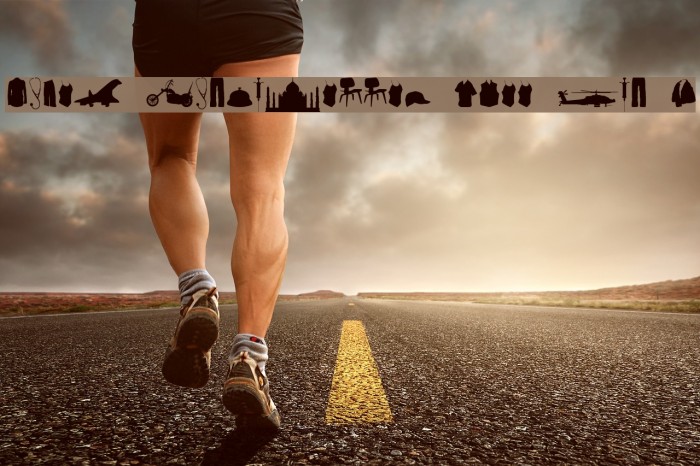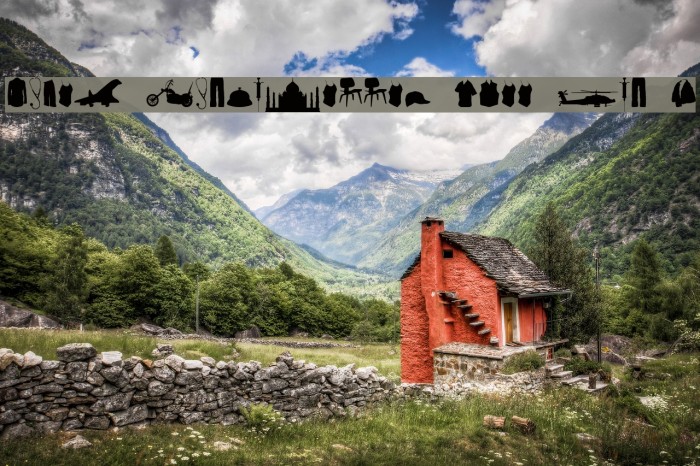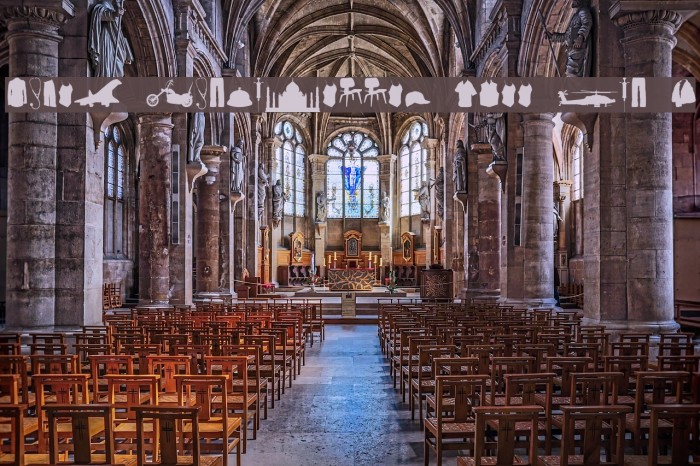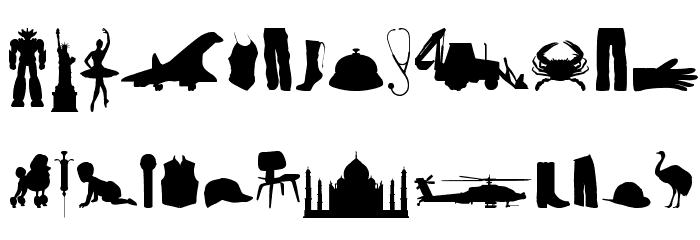
Mixed Silhouettes Free vol 3 Font
Mixed Silhouettes Free vol 3 Description
A decorative display font made up entirely of various mixed silhouettes, including people, vehicles, animals, clothing, and objects, with each character represented by a unique black silhouette rather than traditional letterforms.
A silhouette-based decorative display font using assorted object and figure shapes from Uncategorized fonts.
- Proposed Projects: Posters, creative headlines, children’s books, educational materials, playful branding, event flyers.
- Overall Style: Decorative, Playful, Eclectic
- Use Case: Headlines, Posters, Themed graphics, Educational visuals